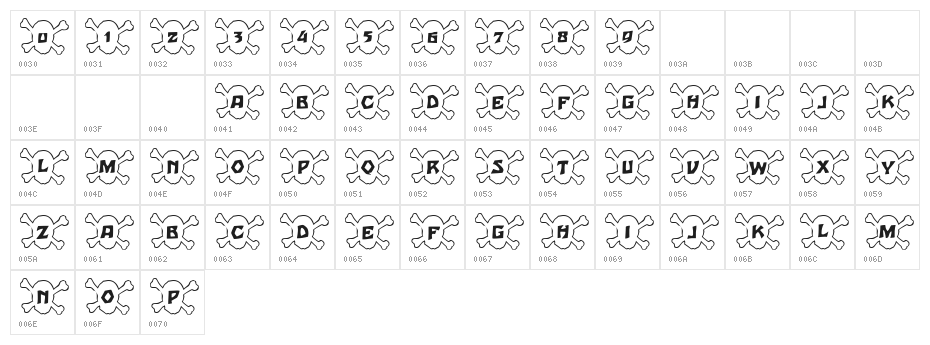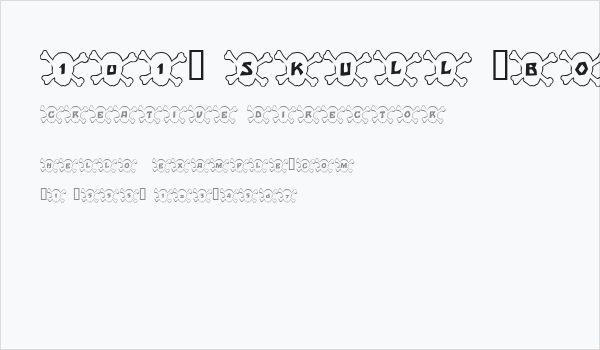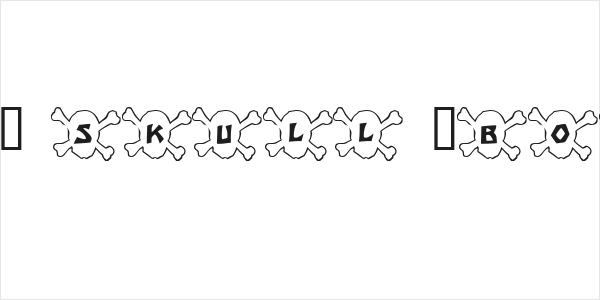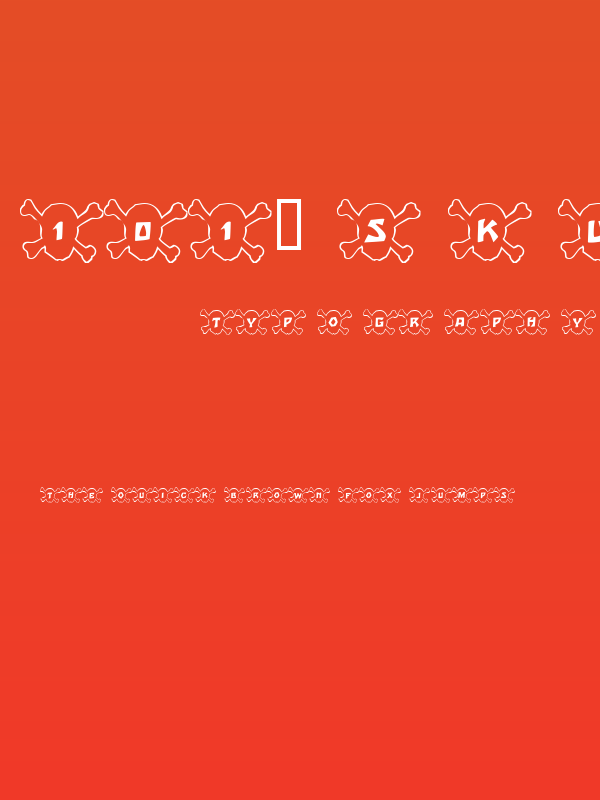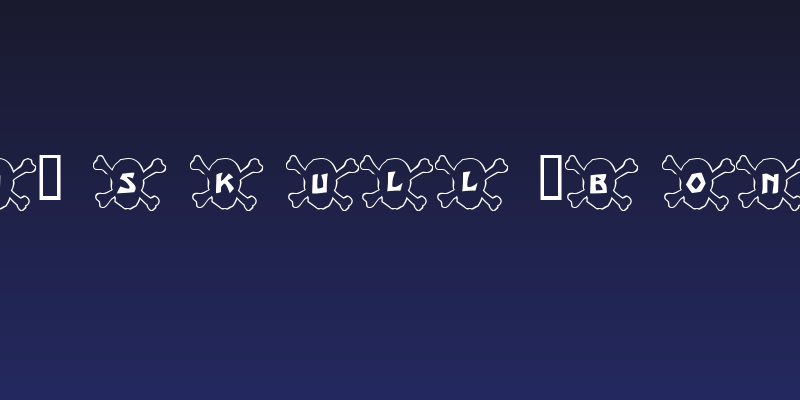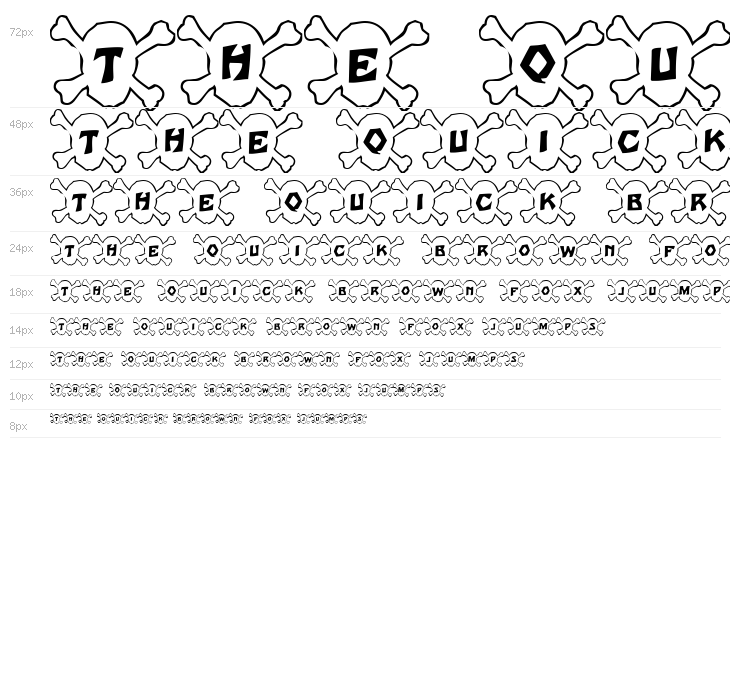
101! Skull &BoneZ Font
101! Skull &BoneZ Description
This font features a unique and playful design where each character is encased within a skull and crossbones motif. The letters and numbers are bold and clear, making them stand out against the decorative background. The style is distinctly thematic, evoking a sense of adventure and mystery, perfect for pirate-themed projects or Halloween designs. The characters are evenly spaced within their frames, maintaining a consistent look throughout. The font's decorative nature makes it more suitable for headlines or logos rather than body text.
| Proposed Projects | This font is perfect for pirate-themed events, Halloween invitations, children's adventure books, or any project requiring a bold, thematic display. |